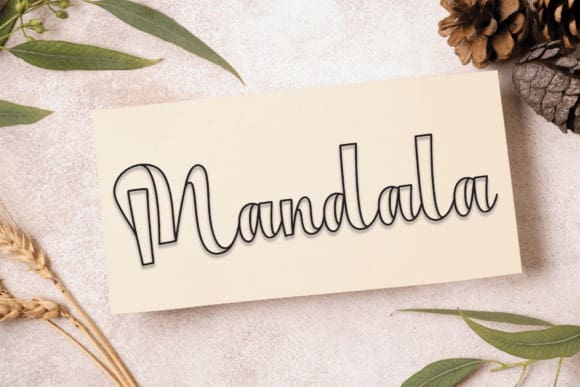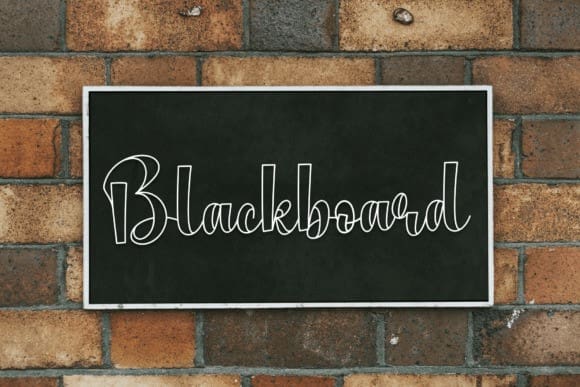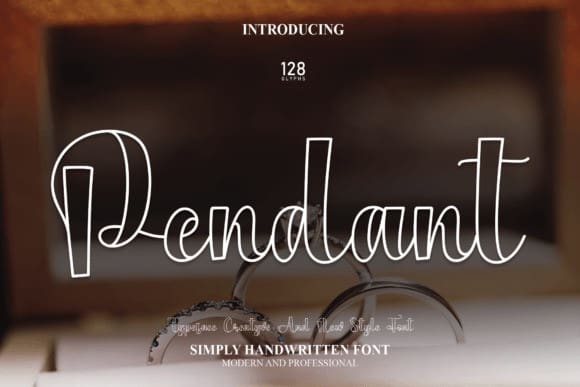
Pendant Script Font
Pendant Script Font is an exquisite handwritten font, masterfully designed to become a true favorite. It maintains its classy calligraphic influences while feeling contemporary and fresh. Fall in love with it and bring your projects to the highest levels!